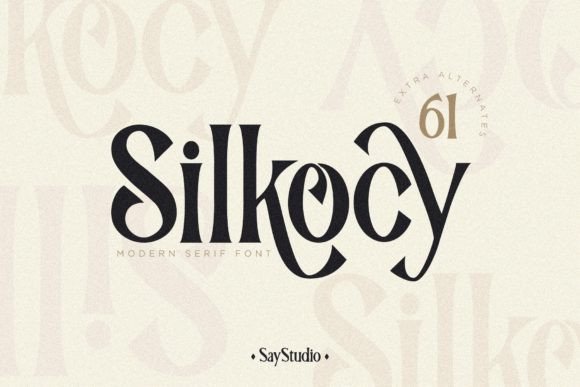
Behold Silkocy, a modern condensed masterpiece that weaves its captivating charm into the realm of typography. SayStudio, the visionary behind this exquisite font, has conjured a typeface that dances elegantly across your screen, leaving a trail of visual enchantment in its wake.
Silkocy transcends the boundaries of ordinary fonts, emerging as a work of art that elevates your designs to new heights of sophistication. Its meticulously crafted uppercase and lowercase characters embody the essence of grace and poise, making it the perfect choice for crafting logos, headers, and inspiring quotes that demand attention.
Immerse yourself in a world of visual allure as Silkocy's ethereal form dances across your screen. Its smooth curves and delicate details evoke a sense of timeless elegance, while its condensed structure lends an air of contemporary chic.
With Silkocy at your creative fingertips, you'll effortlessly create designs that captivate audiences and leave a lasting impression. Its PUA encoding opens up a realm of possibilities, granting you seamless access to a treasure trove of glyphs and swashes that unleash your imagination.
Unleash the boundless creativity within you as Silkocy transforms your digital creations into masterpieces of visual storytelling. Let its captivating presence elevate your designs, captivating hearts and minds with its timeless beauty and undeniable charm.